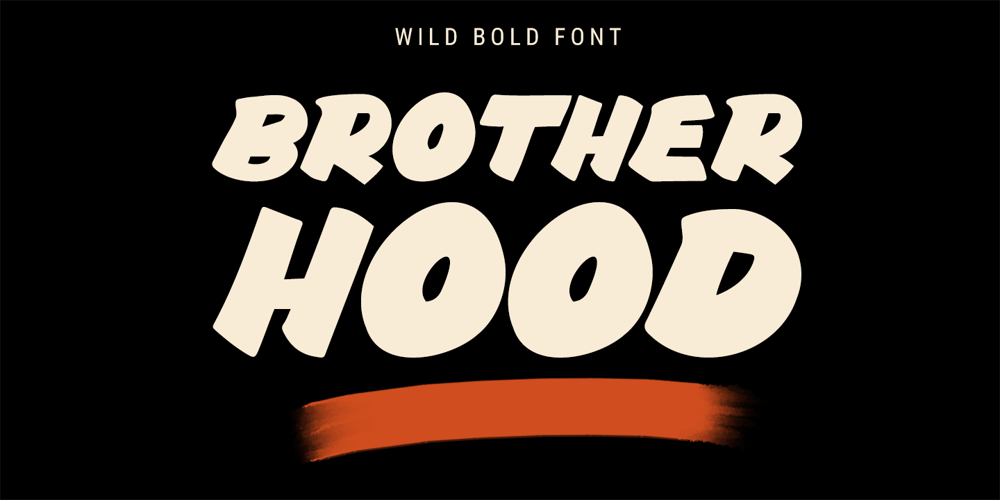
The Hoods Brother
The Hoods Brother font
The Hoods Brother Font Family was designed by Doli Harahap and published by Tigade Std. The Hoods Brother contains 2 styles and family package options. Brotherhood is a masculine modern bold font with touch of craftmanship. It was designed by hand with passion and inspired by the love of adventure. All characters were carefully drawn on a iPad before crafted to become a Typeface. It is easy and perfect to match this typeface for style logos, labels, package design, lettering, patterns and others.Below what’s included in this product: Brotherhood Regular • A hand drawn modern bold sans font. It contains upper & lowercase characters, all punctuation and numerals. Brotherhood Brush • This is a modification of the Regular by adding brush touch. It is another set of upper & lowercase characters. Language Support; It does support basic International CharactersThat’s a wrap! I do really hope you like this font, and please don’t hesitate to contact me if you have any questions. Also, drop by to our instagram!Tigadestd | Doli Harahap